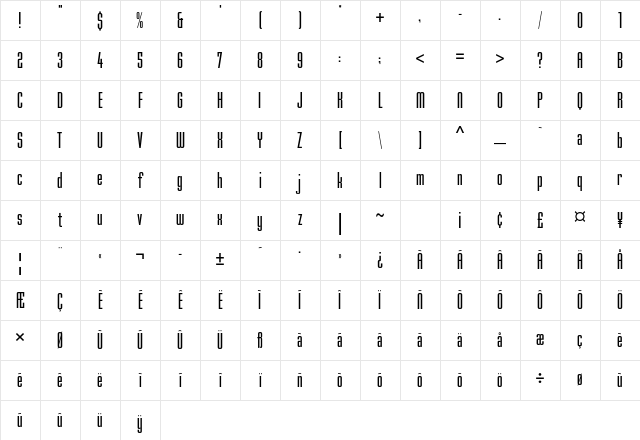
Mekanik Std Regular Free Font
Mekanik Std Regular
Designer: David Quay
Design Context for Mekanik Std
Mekanik Std is a composed and adaptable typeface that performs quietly and consistently across a wide range of design contexts.